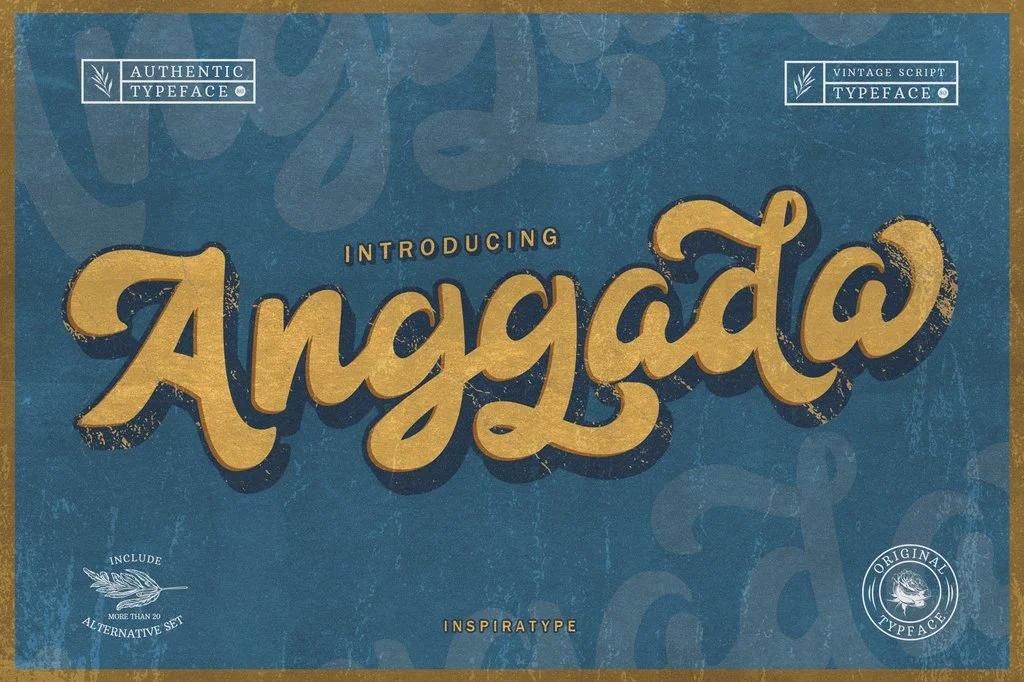
Anggada Free Font
Anggada Font is perfect for cultural branding projects, ethnic restaurant logos, traditional product packaging, heritage designs, travel and tourism materials, artisan craft labels, cultural event posters, spiritual and meditation branding, exotic fashion labels, authentic cuisine menus, multicultural marketing campaigns, and any design project requiring a distinctive cultural aesthetic.
What makes Anggada Font exciting is its unique character that celebrates cultural richness and traditional artistry. The font's distinctive letterforms pay homage to authentic design heritage while maintaining contemporary usability, making it perfect for brands wanting to honor tradition while appealing to modern audiences. Its cultural depth creates meaningful connections with viewers seeking authentic experiences and appreciation for diverse artistic expressions.
The Anggada Font family typically includes uppercase and lowercase letters, numerals, punctuation marks, and decorative elements that reflect its cultural inspiration.